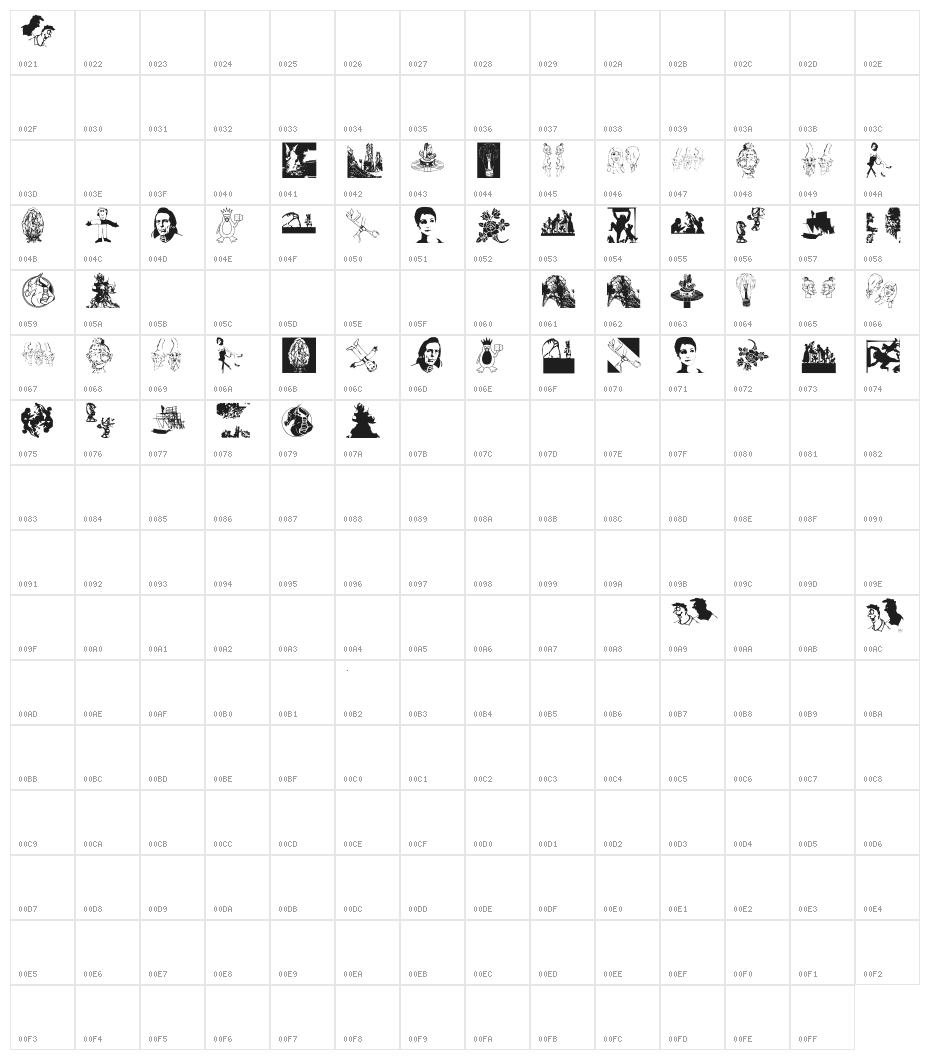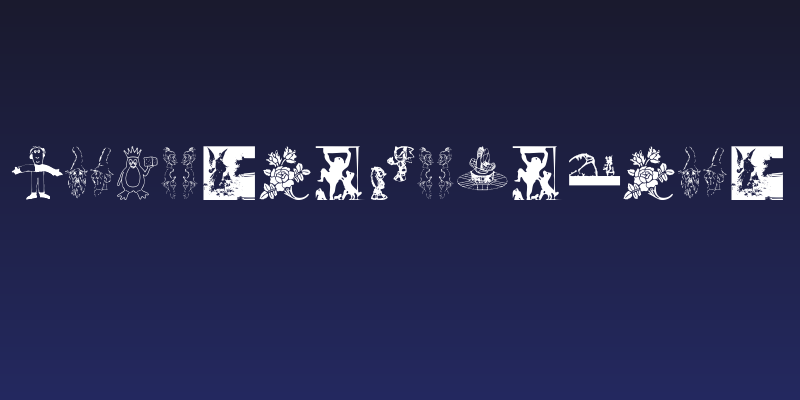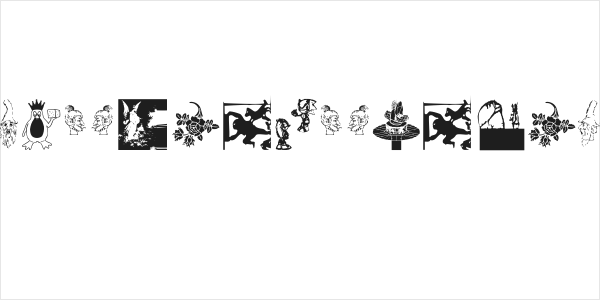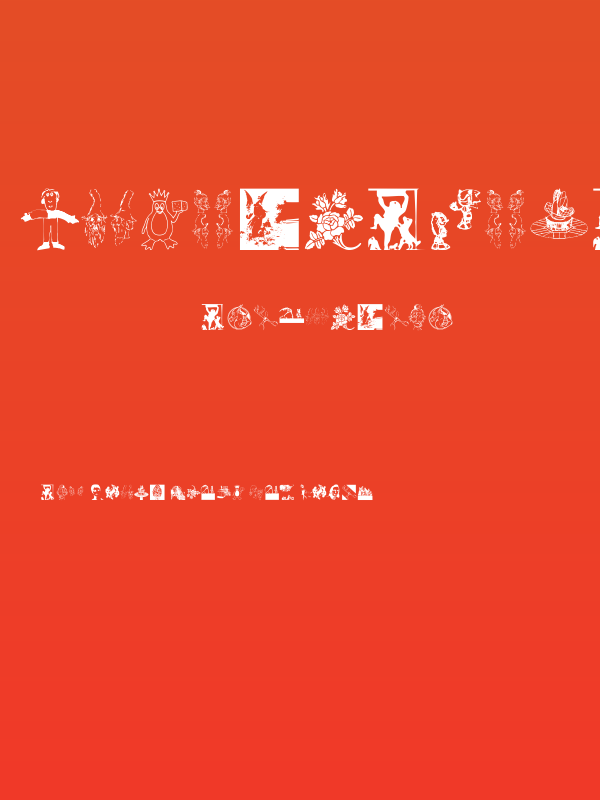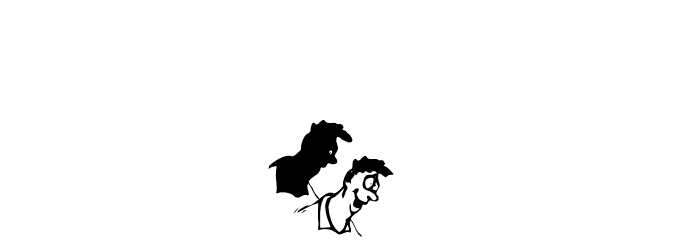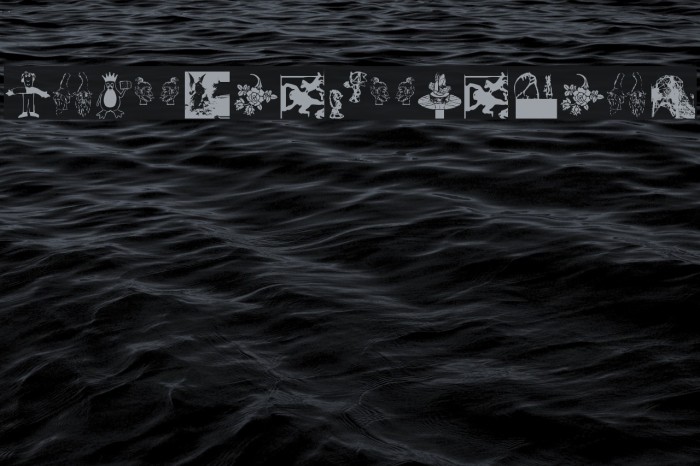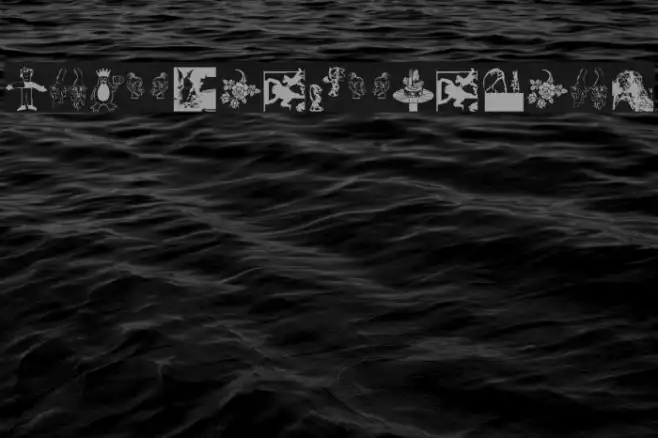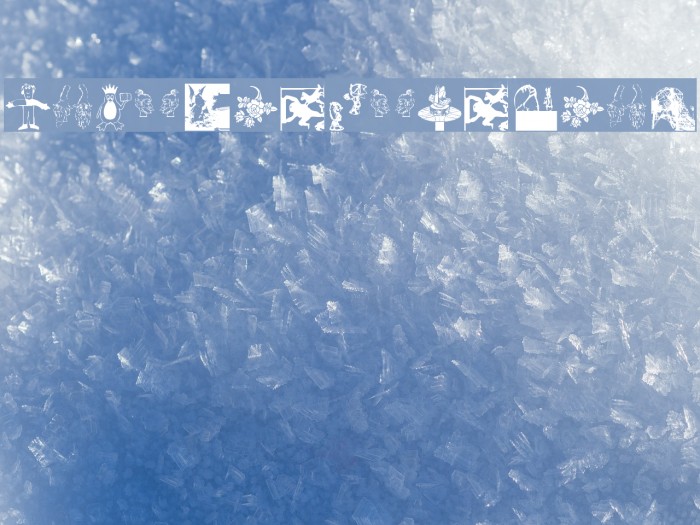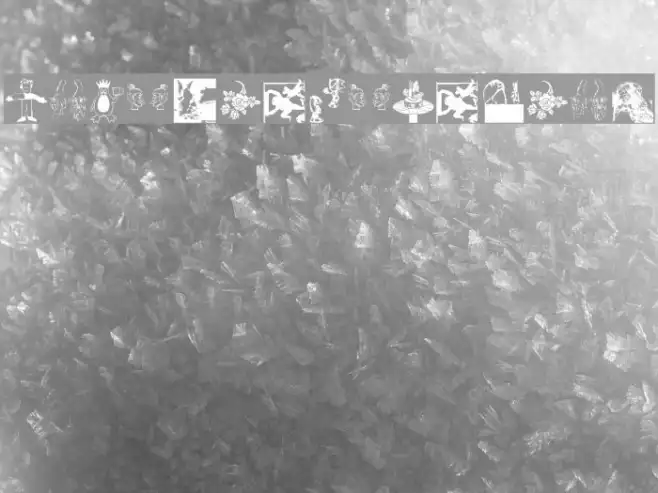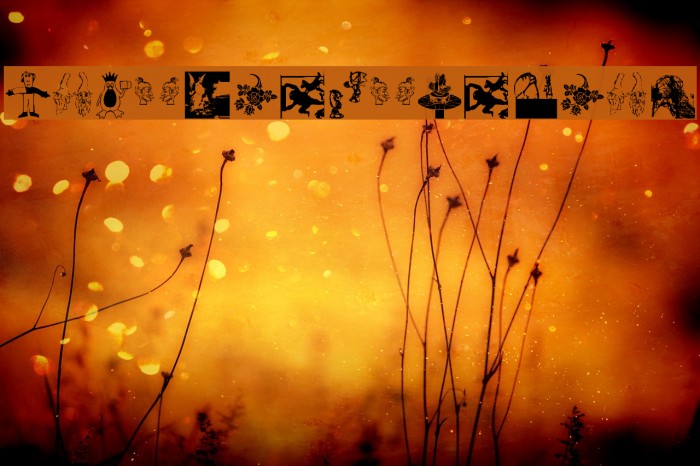
LineArtVectoria Font
LineArtVectoria Description
A decorative dingbat font consisting of various detailed black-and-white vector illustrations, including caricatures, portraits, objects, and scenes. Each character is represented by a unique line art drawing rather than a traditional letterform.
| Overall Style | Decorative, Artistic, Whimsical |
| Use Case | Decorative elements, Illustrative icons, Thematic dividers |
| Proposed Projects | Posters, invitations, scrapbooking, graphic design accents, educational materials, creative branding. |